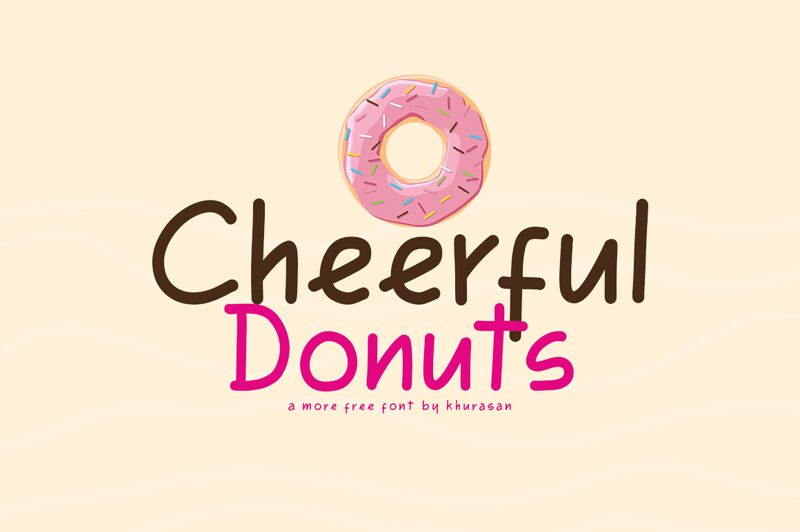
Cheerful Donuts
Dive into the delightful realm of Cheerful Donuts, a modern handwritten font crafted by the talented Khurasan. With its semi-light weight and whimsical charm, this typeface is a sweet treat for any designer's toolkit. Its playful curves and bouncy characters echo the joy of scribbled notes and personal messages, making it an ideal choice for projects that demand a touch of warmth and personality.
Whether you're sprucing up posters, concocting eye-catching logos, assembling stylish magazines, designing inviting book covers, or crafting attention-grabbing banners—Cheerful Donuts brings a sprinkle of fun to your creative confections. This font's versatility shines across both digital canvases and printed pages.